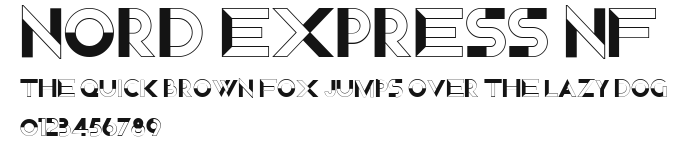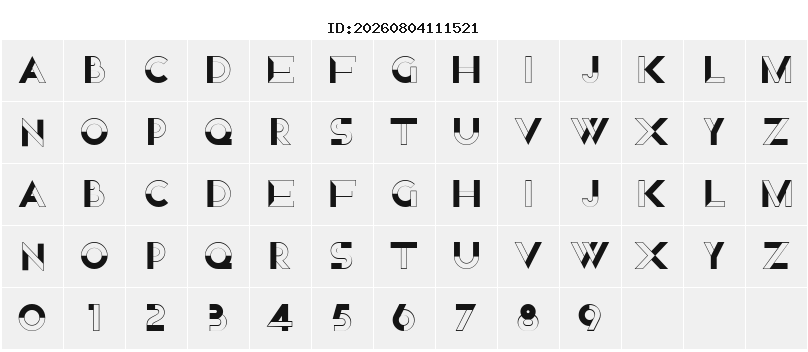
• Font Name: Nord Express NF
• Full Font Name: Nord Express NF
• Designer: Nick Curtis
About Nord Express NF.ttf
Nord Express NF.ttf is a modern, elegant sans-serif font designed for ultimate readability and visual harmony. Perfect for branding, headlines, web design, and print materials.